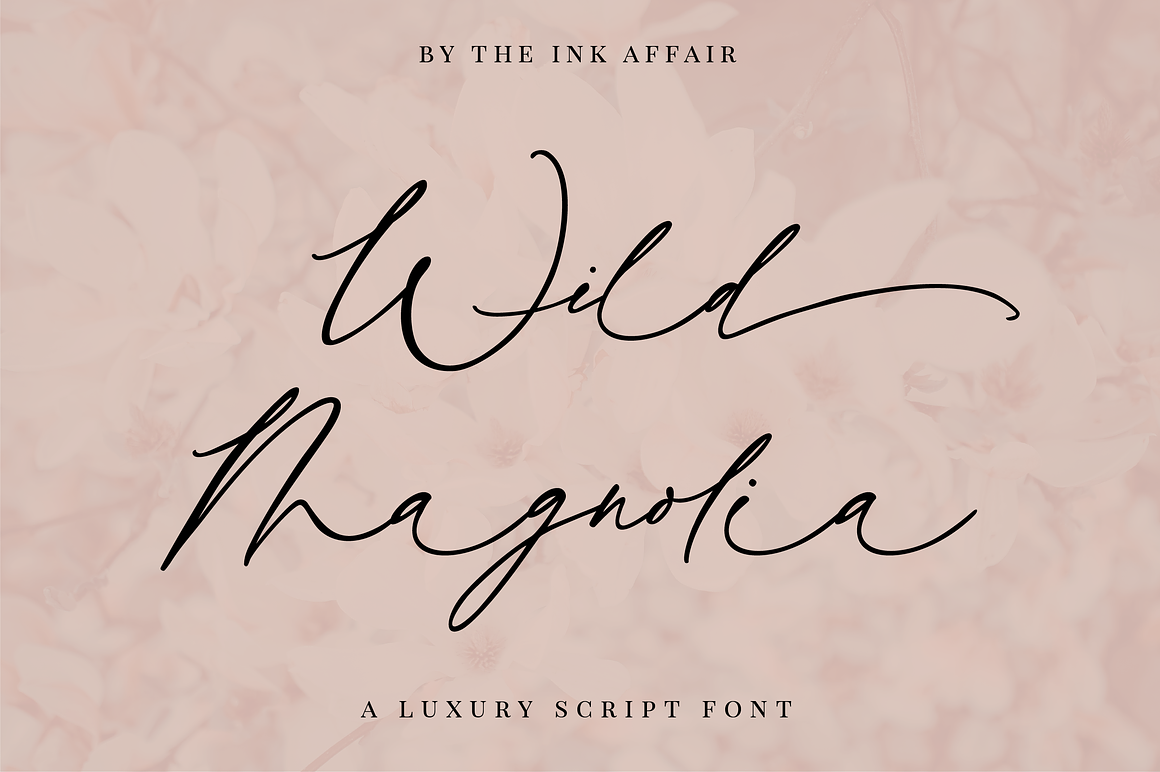
Wild Magnolia Luxury Script Font is perfect for elegant Southern estate branding, luxury botanical wedding invitations, high-end garden center materials, premium floral design studios, sophisticated spa retreats, and exclusive hospitality venues. Its graceful character makes it ideal for luxury plantation resorts, artisanal perfume brands, botanical art galleries, upscale flower shops, exclusive garden parties, and any project requiring natural elegance with Southern charm and luxurious botanical sophistication.
This font is exciting because it captures the intoxicating beauty and romantic allure of blooming magnolias while delivering exceptional functionality for luxury communications that demand both elegance and authenticity. The flowing letterforms evoke images of moonlit gardens, Southern mansions, and the timeless grace of nature's most beautiful blossoms, creating powerful emotional connections that resonate with audiences seeking refined luxury and natural beauty.
The Wild Magnolia Luxury Script Font family typically includes Regular, Bold, and ornamental variations with botanical swashes, floral flourishes, and nature-inspired decorative elements that enhance its luxurious personality. This comprehensive collection provides designers with sophisticated tools for creating prestigious brand systems that maintain natural authenticity while offering creative flexibility for various luxury applications and premium botanical market positioning.
Whether you're developing identity systems for luxury botanical brands, creating materials for exclusive garden events, or designing packaging for premium natural products, Wild Magnolia Luxury Script Font Free Download delivers the natural elegance and Southern sophistication that connects with discerning audiences. Its enchanting presence ensures memorable brand recognition across digital platforms and print materials, making it perfect for websites, mobile applications, and luxury campaigns that celebrate botanical beauty, Southern heritage, and the timeless appeal of nature's most exquisite flowers with authentic luxury refinement.